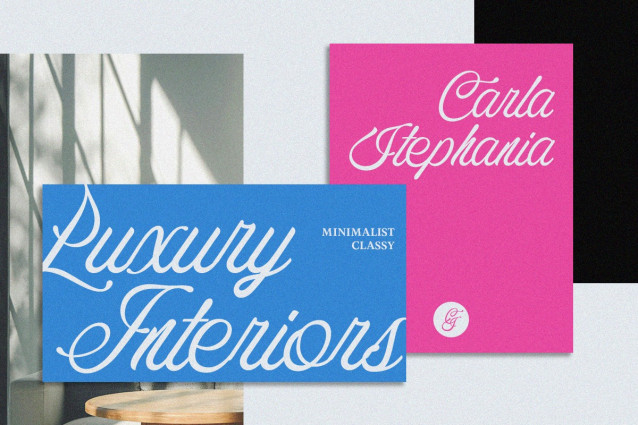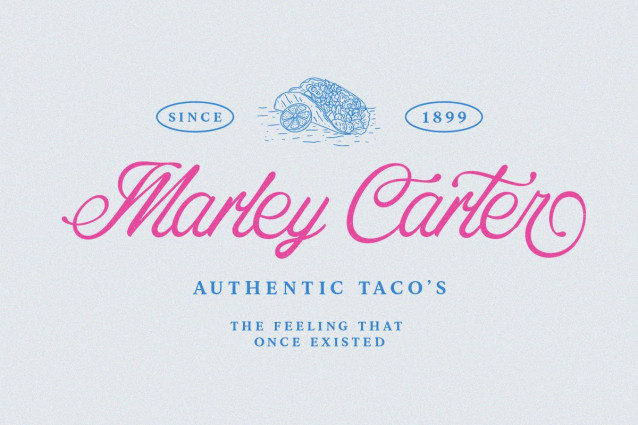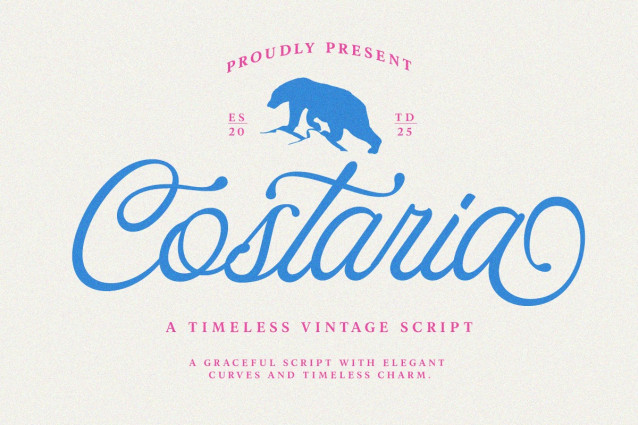
Costaria Script Font
Costaria Script Font is a sophisticated script display font that blends modern elegance with classic charm. Designed with precision and passion by Letterfreshstudio Studio, this typeface exudes luxury, fluidity, and timeless beauty—perfect for branding, packaging, editorials, invitations, and luxury projects. Its graceful letterforms flow smoothly, creating an artistic and refined feel with every stroke. Whether you’re designing a logo, wedding stationery, or an inspirational poster, Refinsted adds a touch of class and distinction that sets your work apart. Ideal for those seeking sophistication and flexibility in their typographic toolkit.